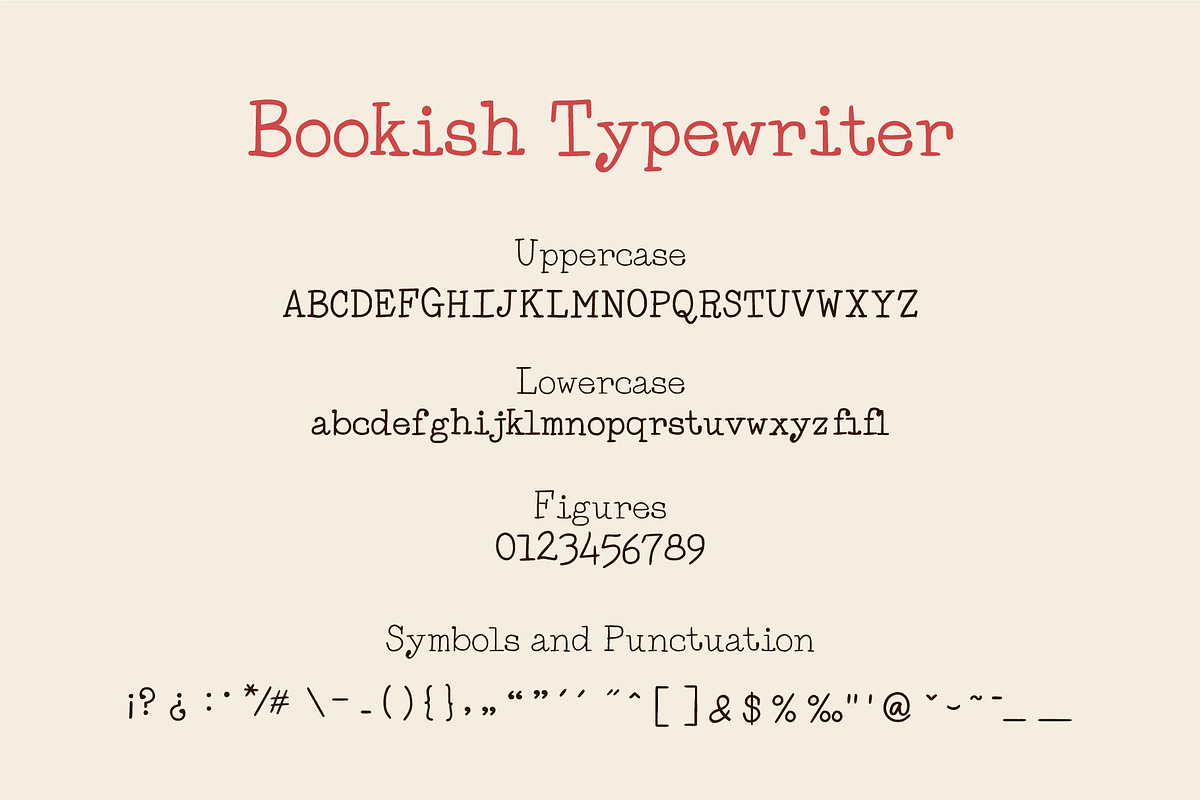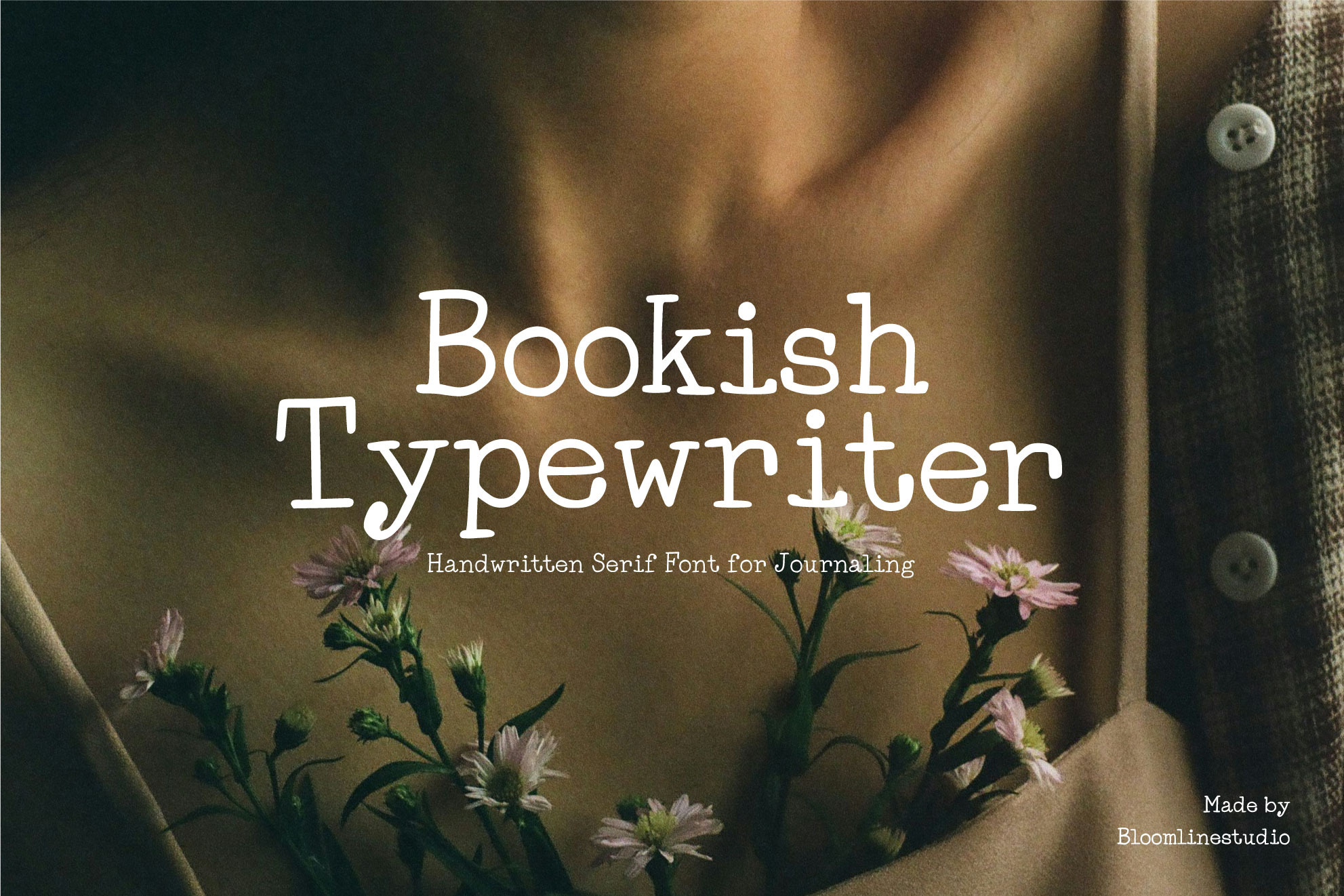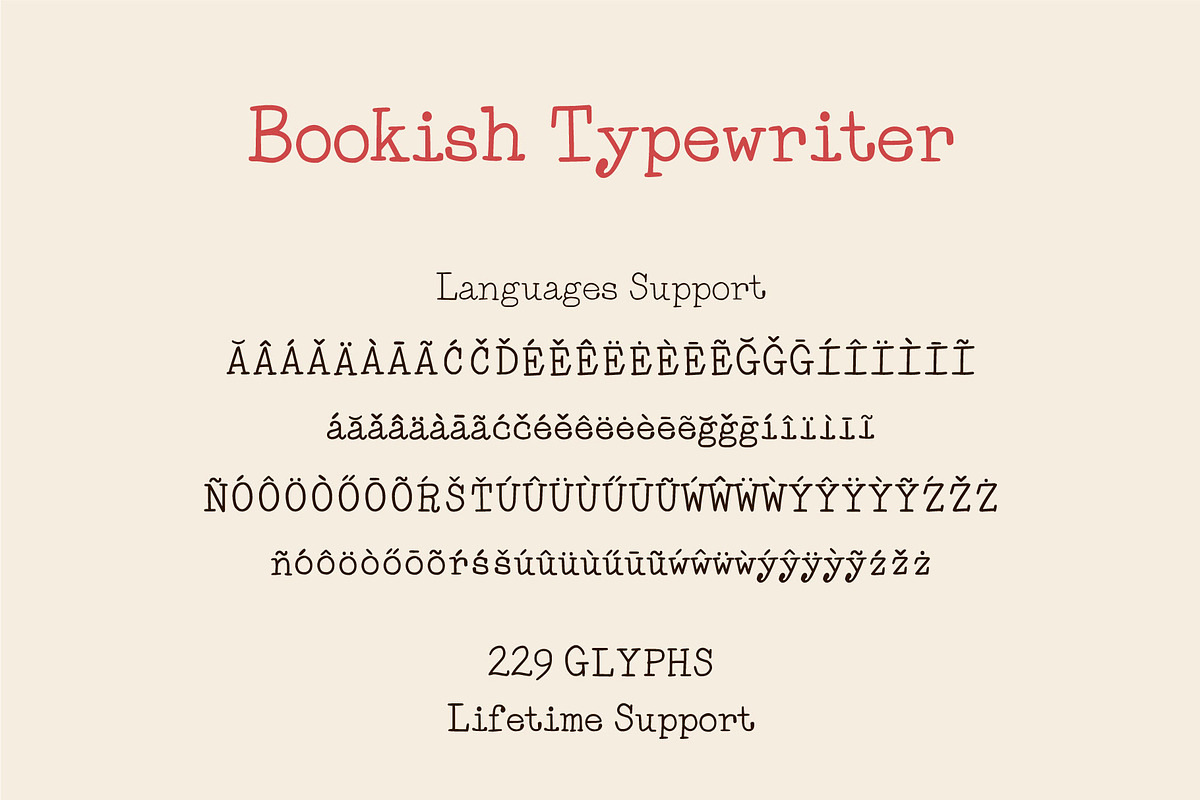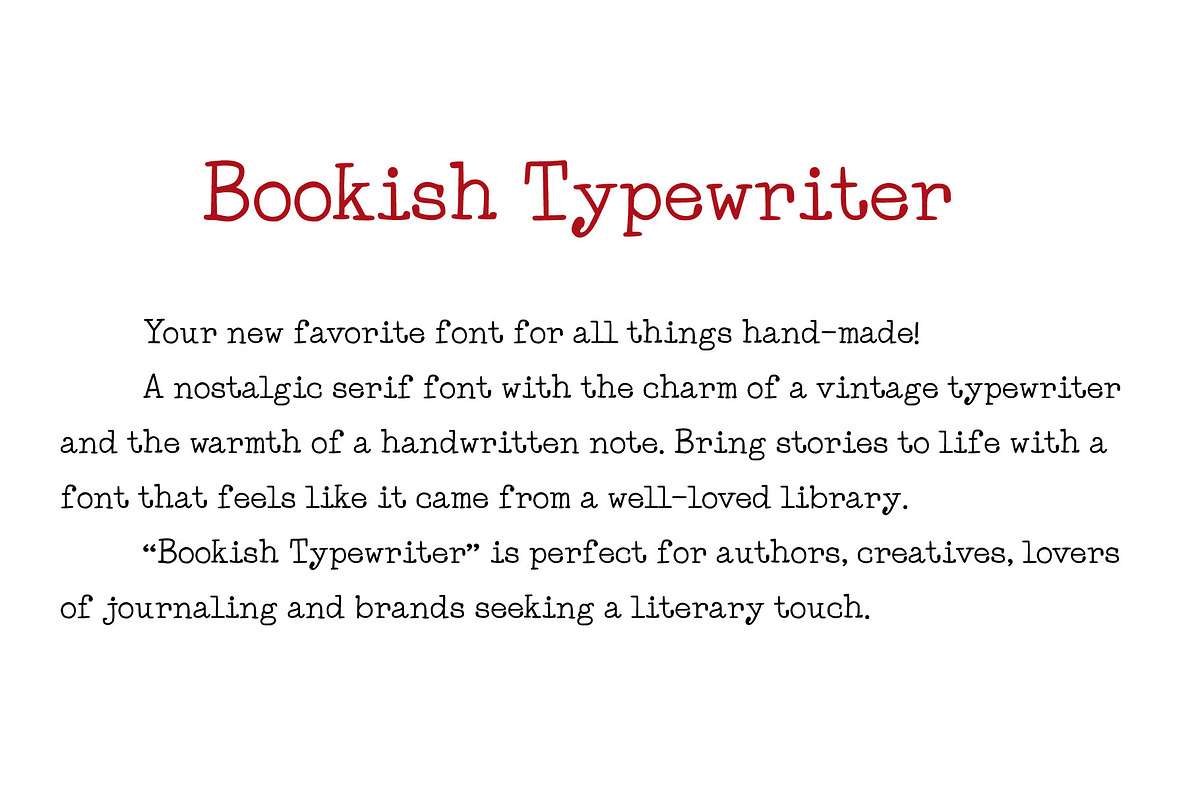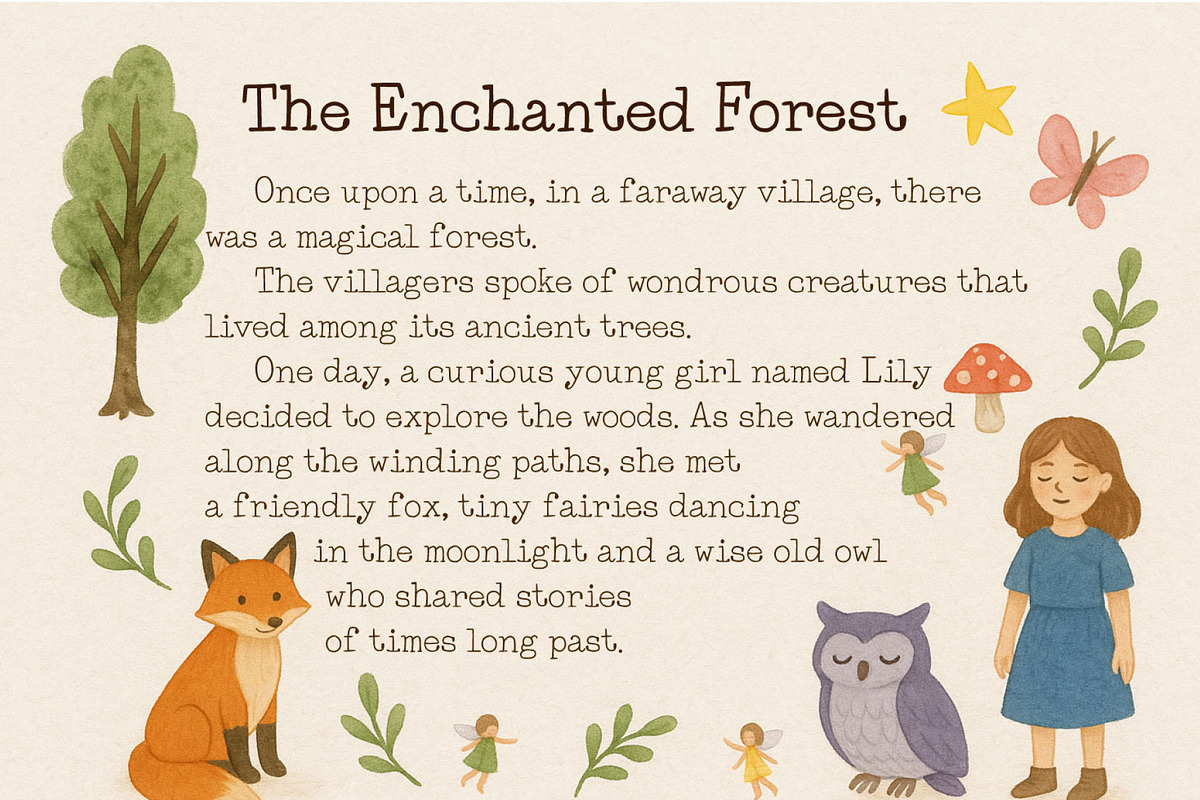
Bookish Typewriter Handwritten Font
Bookish Typewriter is more than a font – it’s a storytelling tool. Whether you're designing a heartfelt quote, an author brand, or a typewritten-style eBook, this typewriter serif font adds character, warmth, and vintage charm to every project.
This retro typewriter font includes 2 styles – Regular and Light, supports multilingual characters, and features 229 glyphs, making it ideal for designers looking for a versatile, bookish and nostalgic aesthetics.
✅ Ideal for: • Vintage-inspired designs
• Typewriter-style quotes and social media graphics
• Book covers, zines, and editorial layouts
• Author logos and stationery
• Journals, planners, and digital scrapbooking
• Cozy branding and handmade packaging
✨ Features: • Font styles: Regular + Light
• Glyphs included: 229 characters
• Language support: Western, Central, Eastern European and African languages
• OpenType features: Standard ligatures (fi, fl)
• Font Family Bundle: Includes Light and Regular styles.